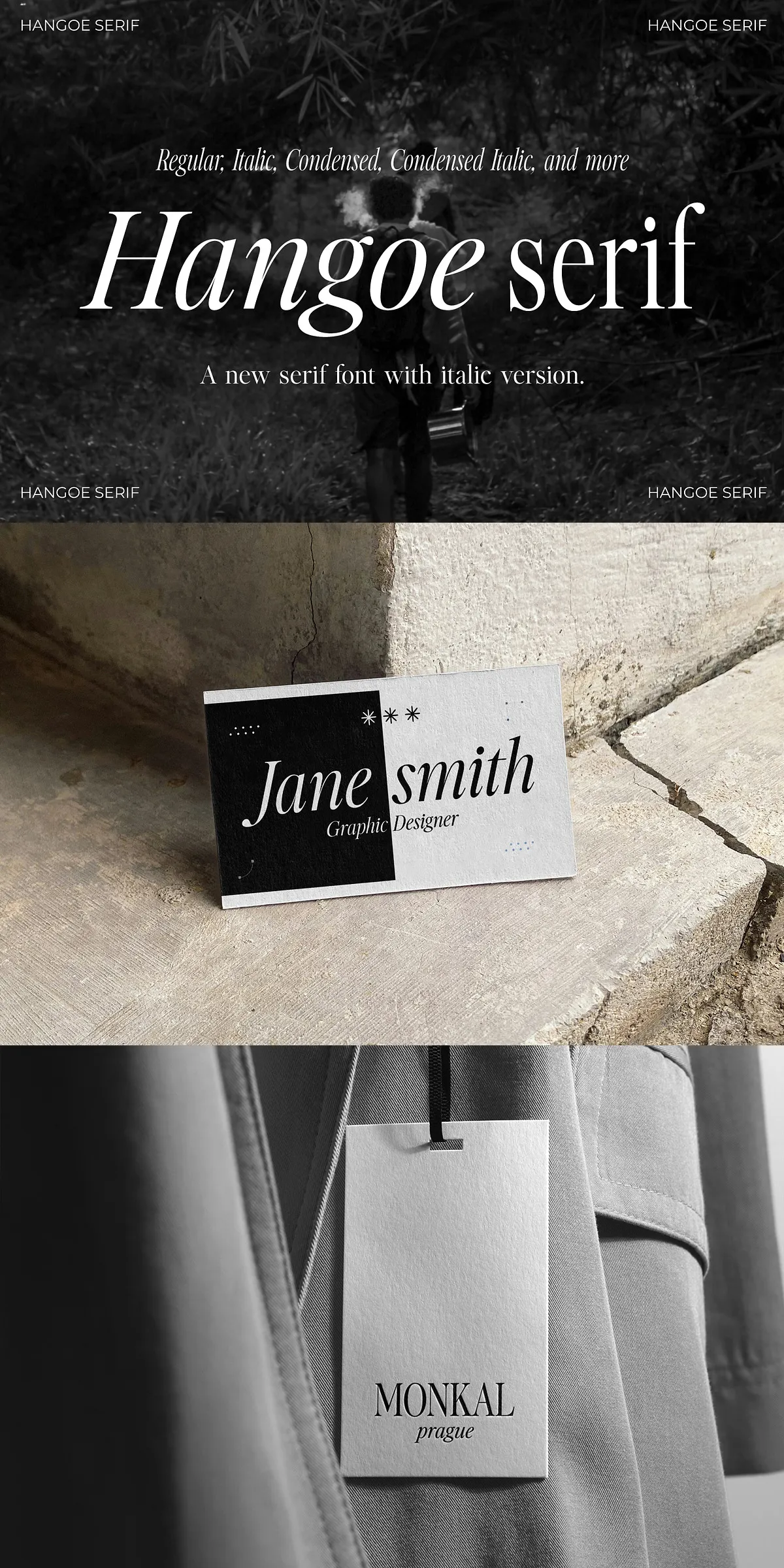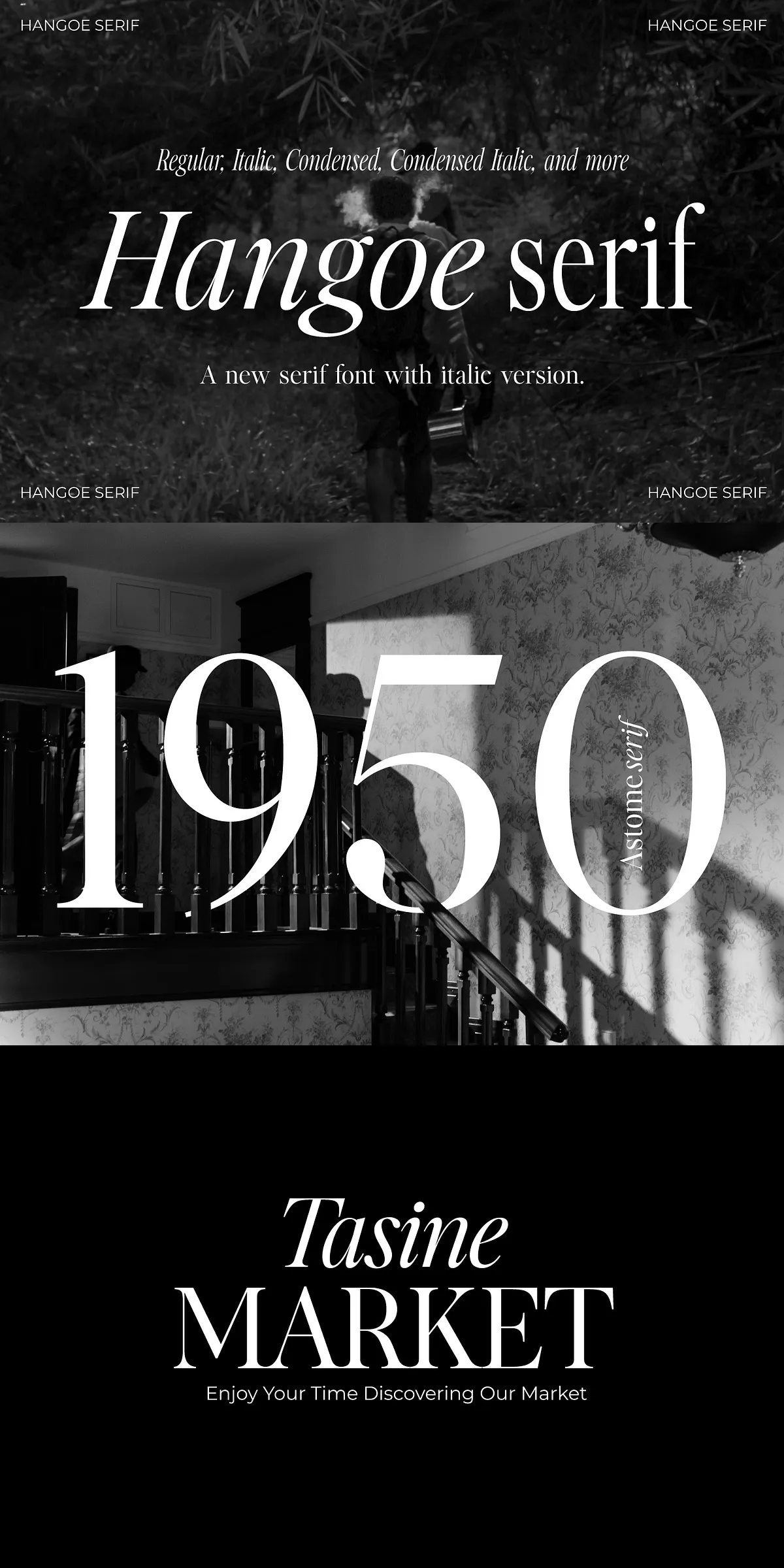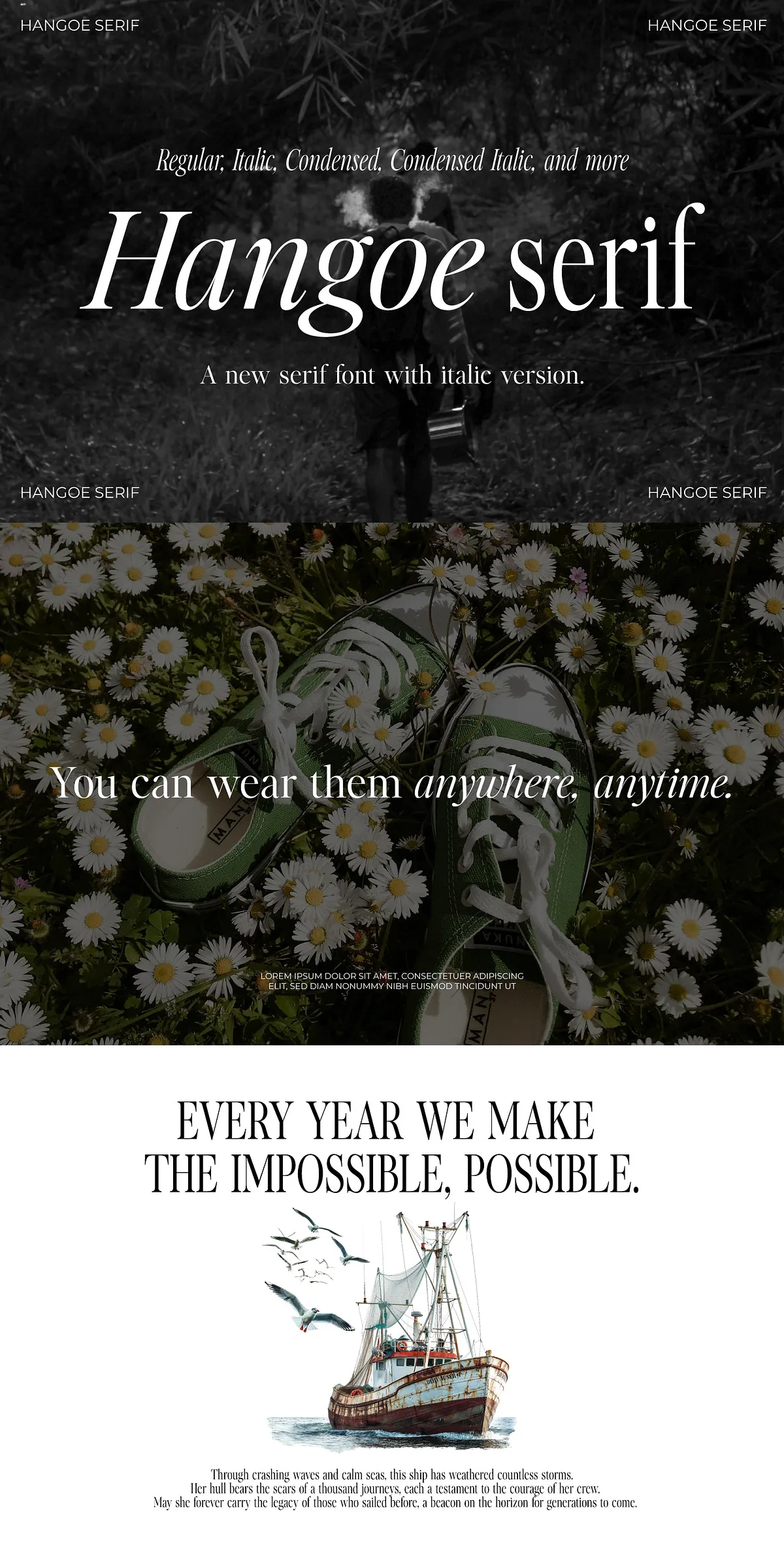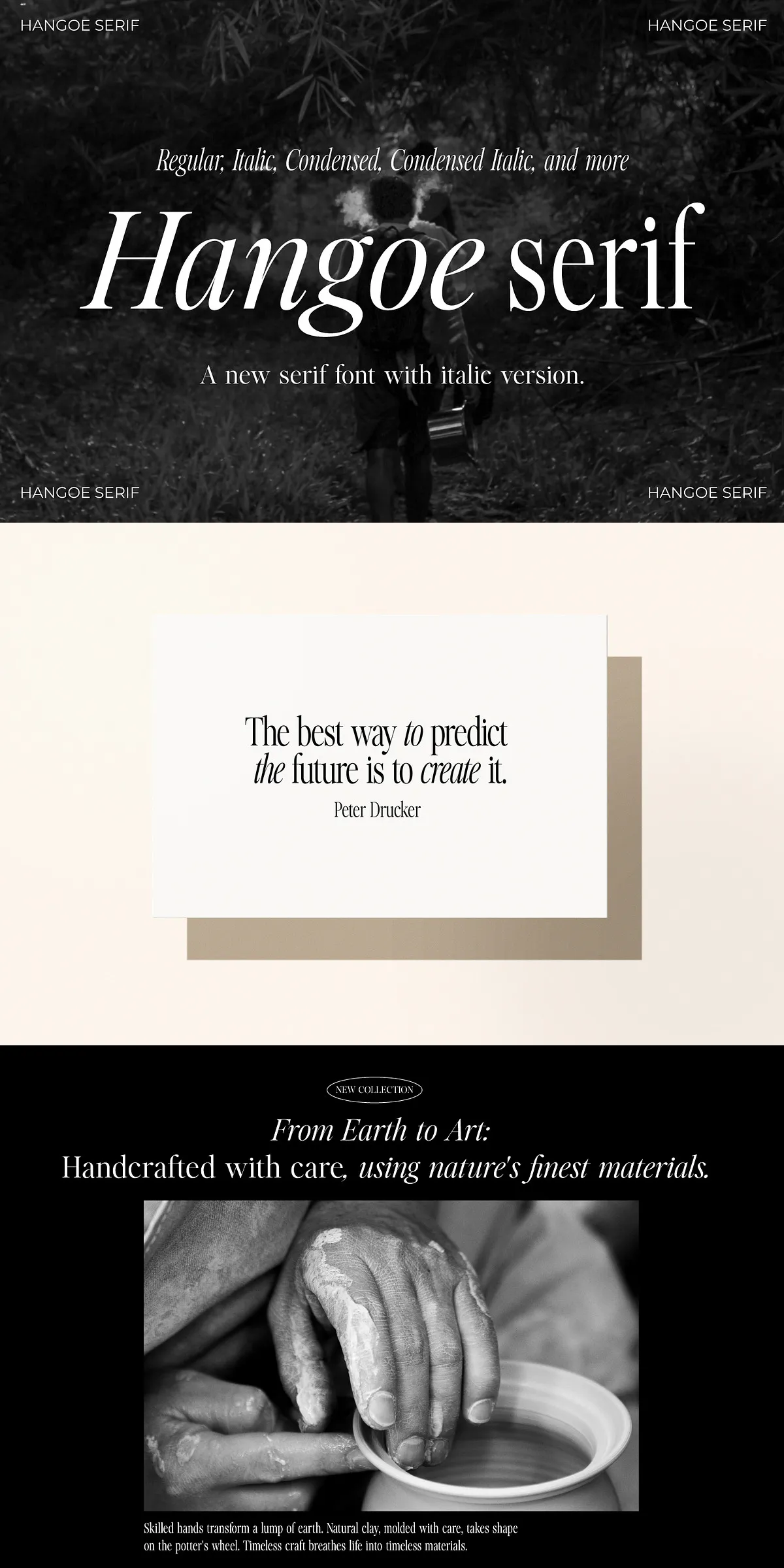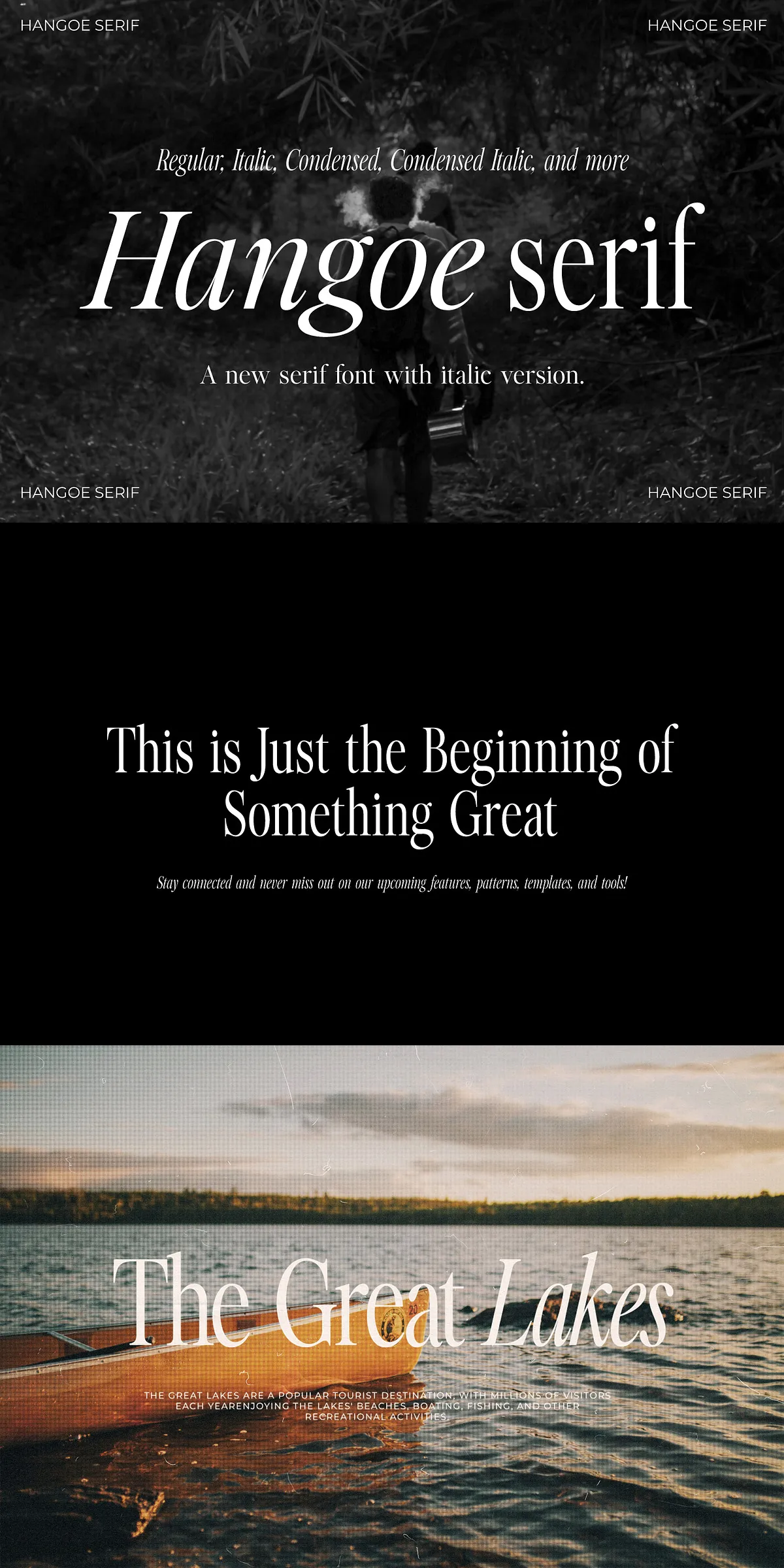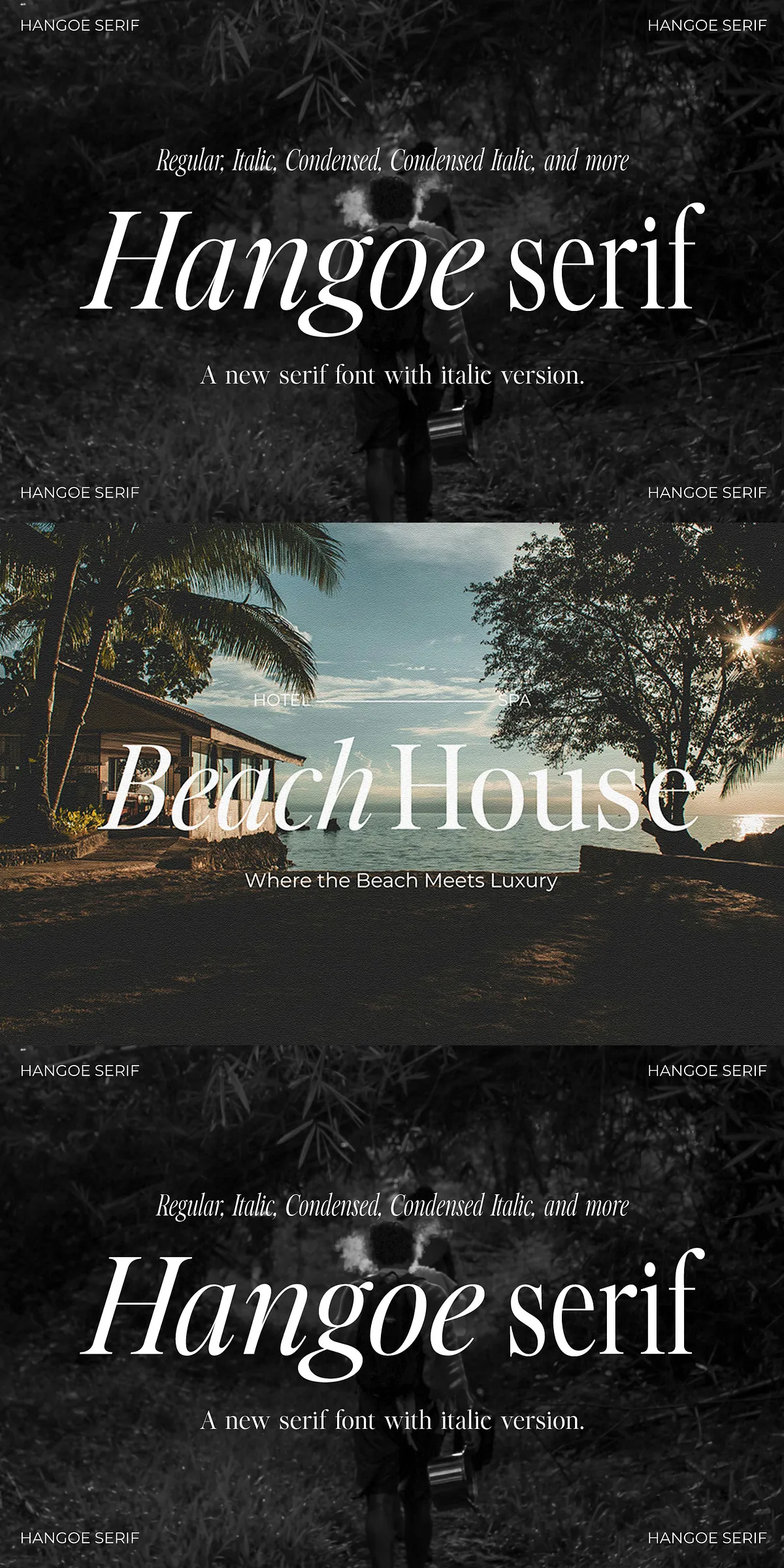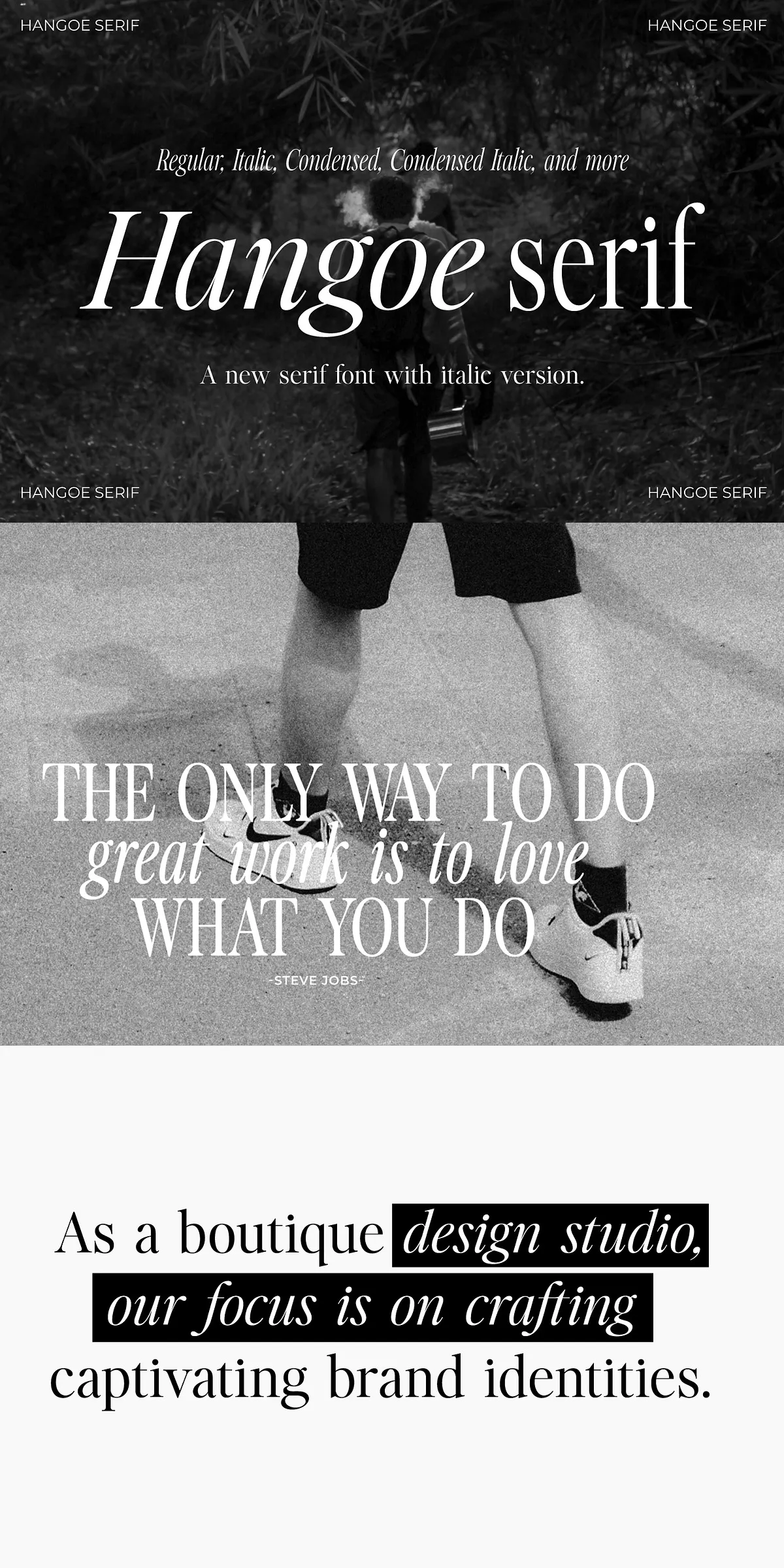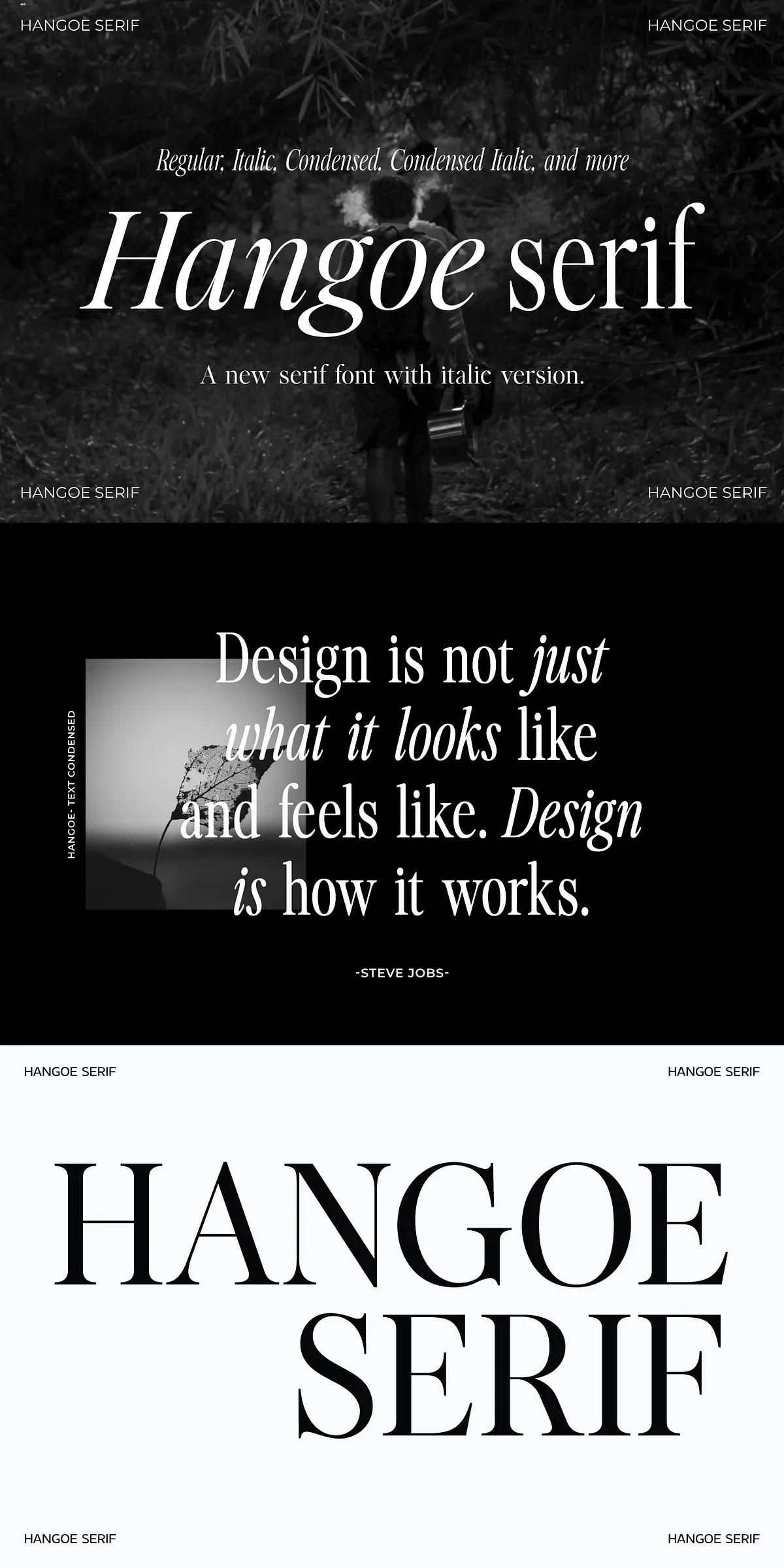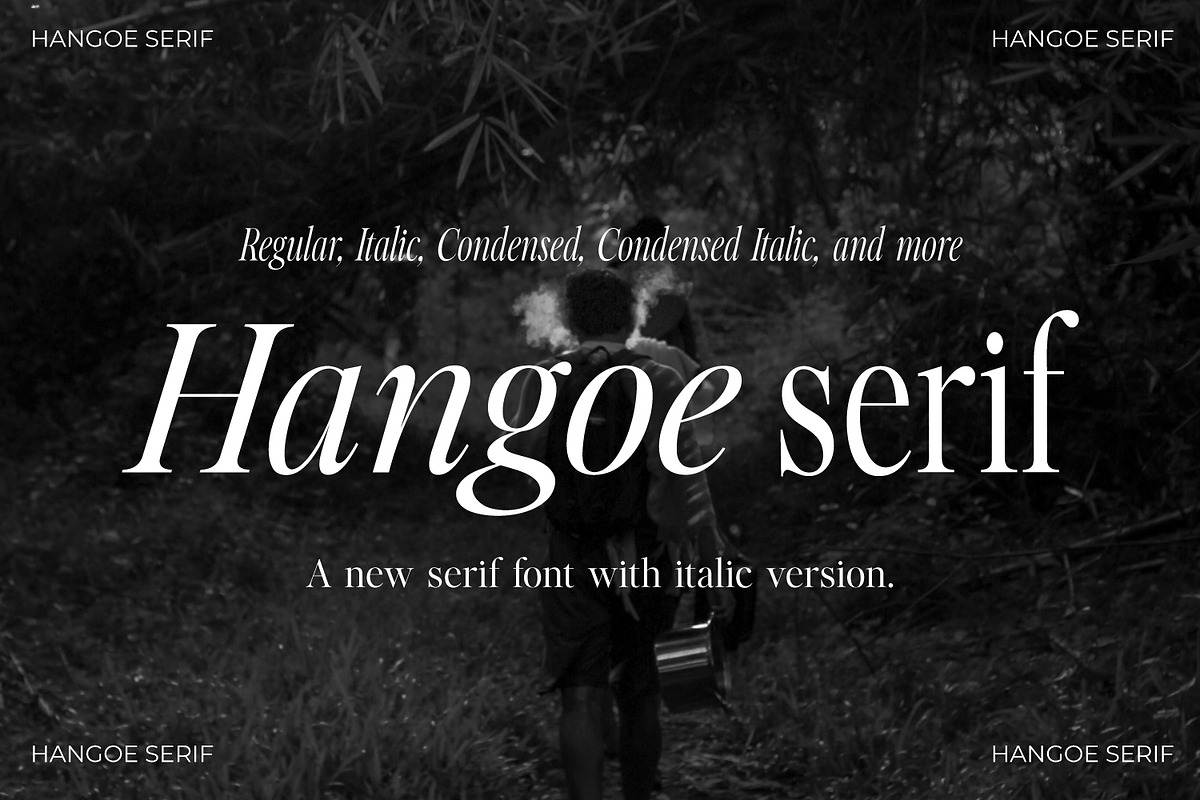
Introducing Hangoe — a refined serif typeface engineered to bring classical elegance and modern versatility to every project. Whether you’re building a brand identity, crafting a high-end invitation, or designing editorial layouts, Hangoe delivers the polished sophistication that elevates good design into exceptional work.
Eight Distinct Styles for Every Creative Need
Hangoe isn’t just a font — it’s a comprehensive type family built for precision and flexibility. With a total of eight distinct styles, this serif powerhouse adapts to your most demanding design challenges:
- Regular
- Italic
- Condensed
- Condensed Italic
- Text
- Text Italic
- Text Condensed
- Text Condensed Italic
From bold display headlines to subtle body text, Hangoe gives you the full range of typographic expression. Use the condensed styles for tight layouts and minimalist designs. Leverage the text variants for long-form reading. Match the italic styles to add grace and movement to your messaging.
Professional-Grade Features for Designers Who Demand Excellence
Hangoe is more than just beautiful letterforms — it’s equipped with advanced typographic tools that make your workflow smoother and your results sharper.
- Advanced OpenType Features — Access enhanced kerning, elegant ligatures, and customizable stylistic sets that adapt to your design language and improve readability.
Where Hangoe Shines: Real-World Applications
Built with intention, Hangoe excels in the most demanding design environments:
- Brand Identity & Logo Design — Create strong, memorable logos with a timeless, trustworthy aesthetic that speaks to professionalism and refinement.
- Editorial & Publication Design — Ideal for magazine layouts, book covers, and newspapers, where legibility and visual rhythm are essential.
- Invitations & Stationery — Elevate wedding invites, corporate announcements, and luxury event programs with a serif that radiates formality, grace, and charm.
- Marketing & Packaging — Use it for premium product labels, advertising copy, and brand storytelling that captures attention and builds prestige.
Why Choose Hangoe? Because Quality Matters
In a world flooded with generic fonts, Hangoe stands out by balancing timeless design principles with modern functionality. Its clean lines, balanced proportions, and subtle stroke variation deliver readability and beauty in equal measure.
This is not a trend. It’s a statement. A declaration that great typography isn’t just about style — it’s about impact.